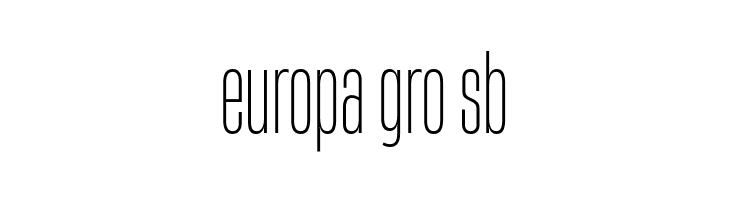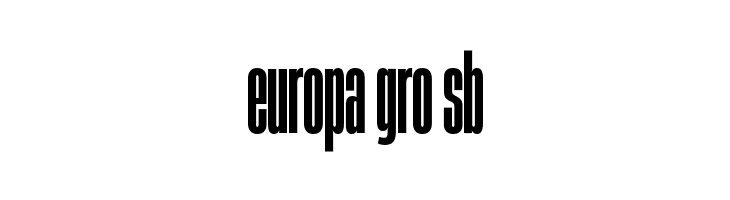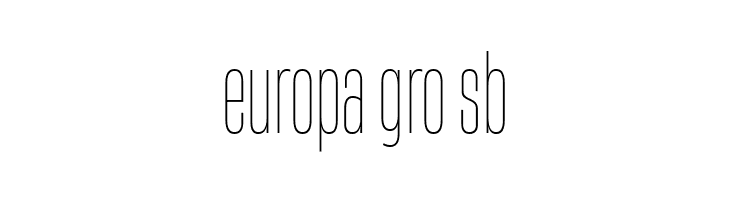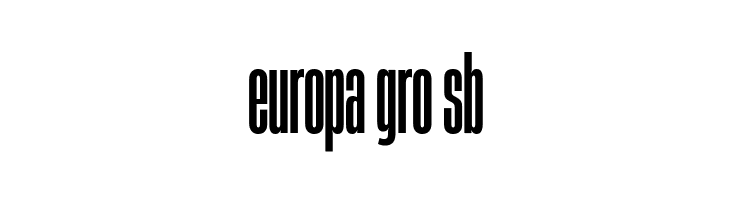
• Heading Now Trial 12 Light
A sleek, modern font with tall, narrow characters and minimal contrast.
• Heading Now Trial 13 Book
A modern, tall, and narrow font with high contrast and tight spacing.
• Heading Now Trial 14 Regular
A modern, sleek font with tall, narrow characters and a refined appearance.
• Heading Now Trial 15 Medium
A bold, condensed, and modern font with tight spacing and minimal contrast.
• Heading Now Trial 16 Bold
A bold, tall, and narrow font with medium contrast and tight spacing, ideal for modern designs.
• Heading Now Trial 17 Extrabold
A bold, condensed font with strong vertical emphasis and minimal spacing.
• Heading Now Trial 18 Heavy
A bold, heavy font with high contrast and tight spacing, perfect for impactful headlines.
• Heading Now Trial 21 Thin
A thin, modern font with elongated, narrow letterforms and minimal stroke contrast.
• Heading Now Trial 22 Light
A modern, thin, and condensed font with a sleek design.
• Heading Now Trial 23 Book
A modern, narrow font with sleek, elegant characters.